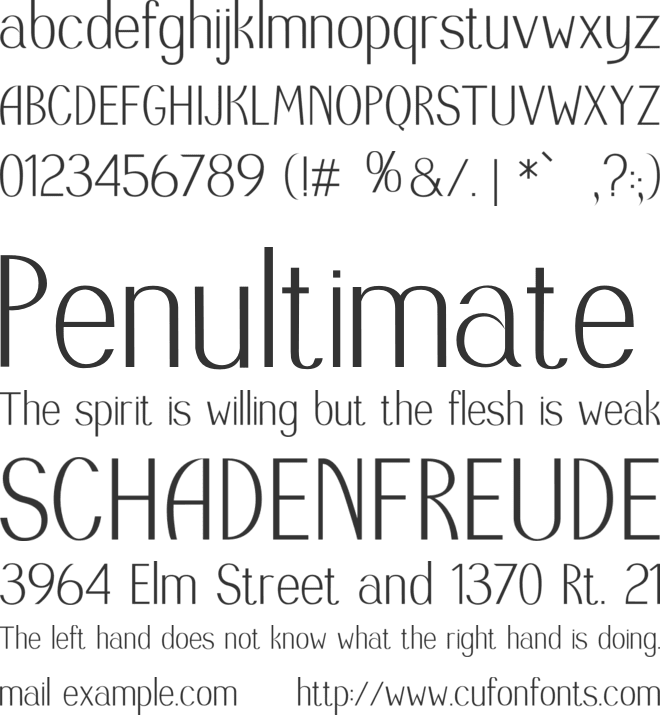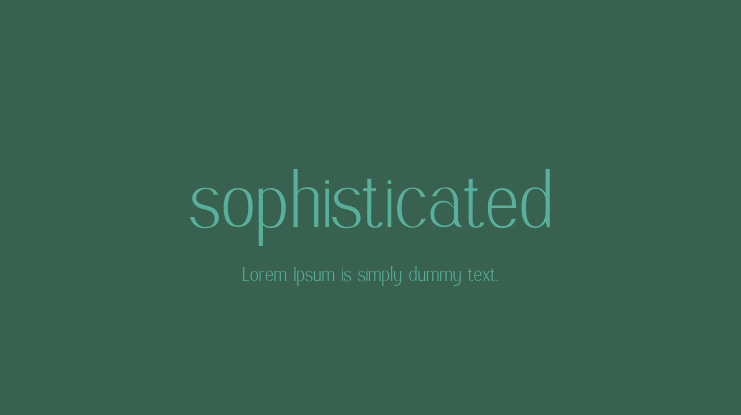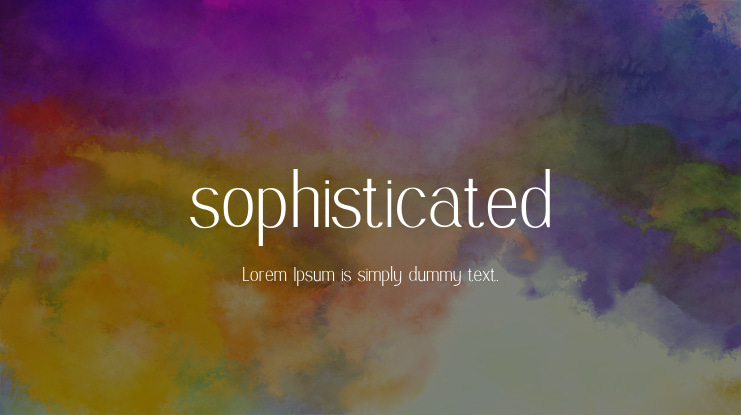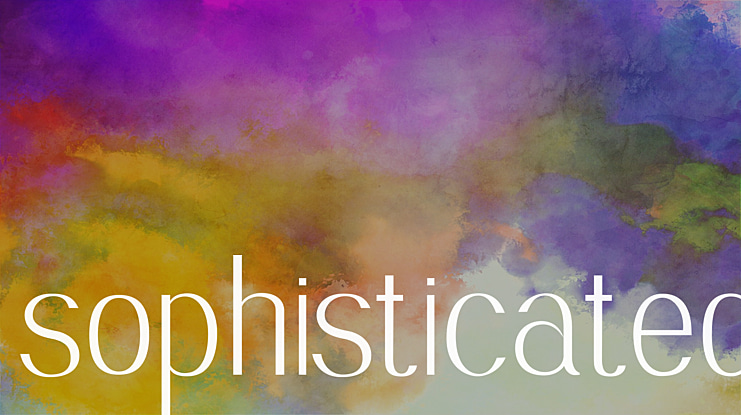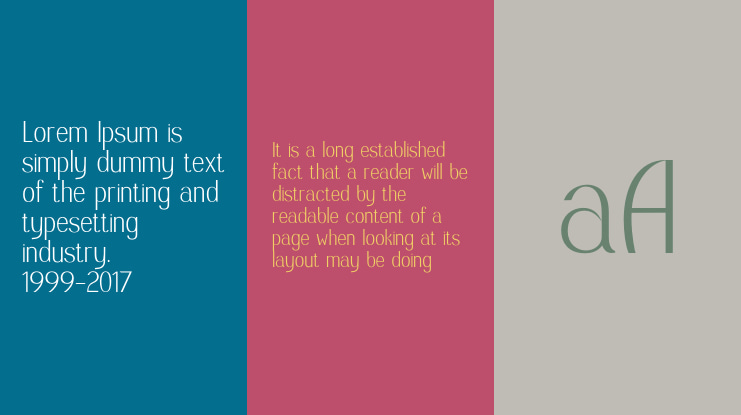
sophisticated Font
Mariia Rudkovska
This typeface is a modern sans serif packed with lots of graphic Glyphs. This font is very legible in all sizes. The font carries tenderness, smoothness and aesthetics. It is useful for headings, short, medium and long arrays of text. The font supports Cyrillic, Cyrillic Extended and Latin. Also punctuation and numbers.